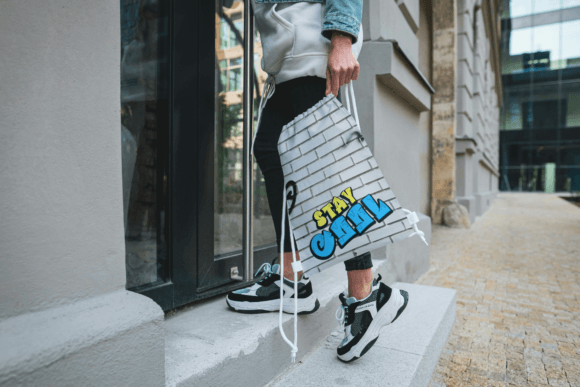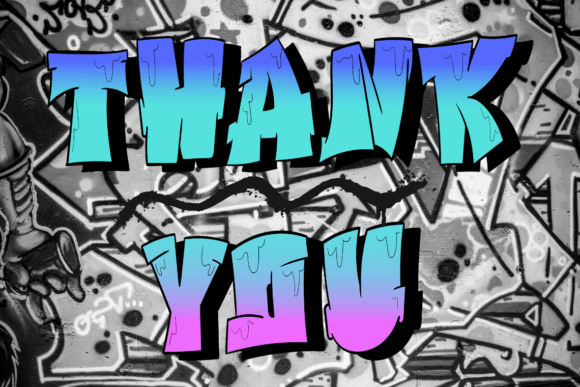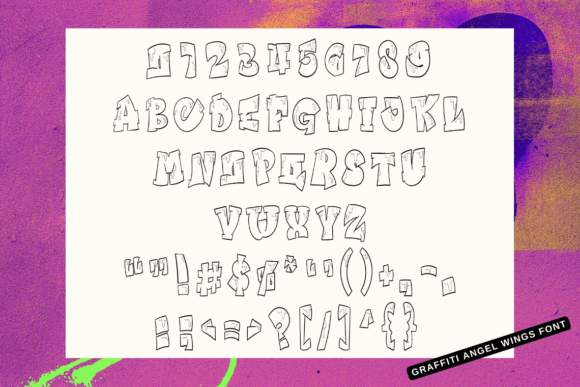
Introducing Graffiti Angel Wings Font: Elevate Your Designs with Urban Flair
Are you a designer or crafter looking for a unique and artistic font to add an urban touch to your projects? Look no further than the Graffiti Angel Wings Font, a display typeface that combines the edginess of graffiti and street art with the elegance of angel wings. This versatile font is perfect for a wide range of occasions, from holidays and birthdays to invitations and more.
What is Graffiti Angel Wings Font?
Graffiti Angel Wings Font is a carefully crafted display typeface that draws inspiration from the vibrant world of graffiti, street art, and grunge-style graphics. The alphabet design features bold lines, unique shapes, and a distinctive flair that sets it apart from more traditional fonts. The addition of angel wings to the design adds a touch of whimsy and sophistication, making it perfect for designers and crafters who want to add a little extra something to their work.
Perfect for a Variety of Occasions
One of the best things about Graffiti Angel Wings Font is its versatility. Whether you’re designing a poster, sticker, greeting card, or invitation, this font is sure to make your project stand out. The urban and artistic vibe of the font makes it perfect for:
- Holiday designs, such as Christmas cards or Halloween invitations
- Birthday party decorations, including banners and gift tags
- Wedding and event invitations that require a unique and artistic touch
- Social media graphics and advertisements that need to grab attention
Graffiti Angel Wings Font is more than just a font – it’s a design tool that can help you unlock your creativity and bring your ideas to life. Here are just a few examples of the many ways you can use this versatile font:
- Lettering and typography projects, such as quotes, posters, and signs
- Logo design and branding for businesses and products
- Street art designs, including murals, stencils, and graffiti
- Wallpapers and backgrounds for digital devices
- Advertisements and marketing materials, such as flyers and brochures
- Headers and titles for websites, blogs, and social media profiles
Why Choose Graffiti Angel Wings Font?
So why choose Graffiti Angel Wings Font over other fonts and typefaces? Here are just a few reasons why designers and crafters love this unique font:
- Unique and eye-catching design: Graffiti Angel Wings Font is unlike any other font on the market, with its bold lines, unique shapes, and distinctive flair.
- Versatile and adaptable: This font can be used for a wide range of projects and occasions, from formal events to casual designs.
- High-quality design: The font is carefully crafted to ensure that it looks great in any size or resolution, making it perfect for both print and digital designs.
Get Creative with Graffiti Angel Wings Font